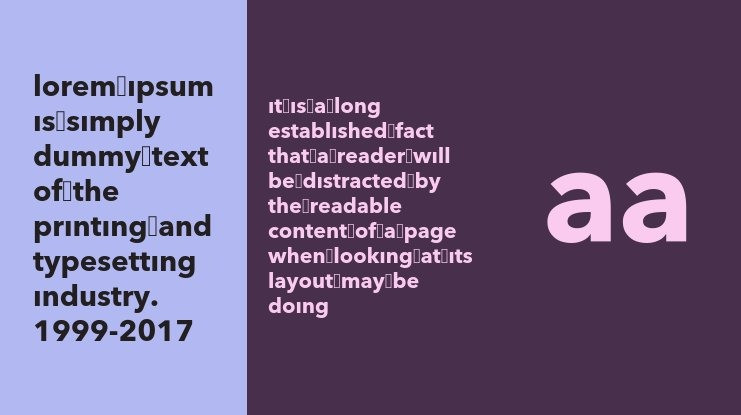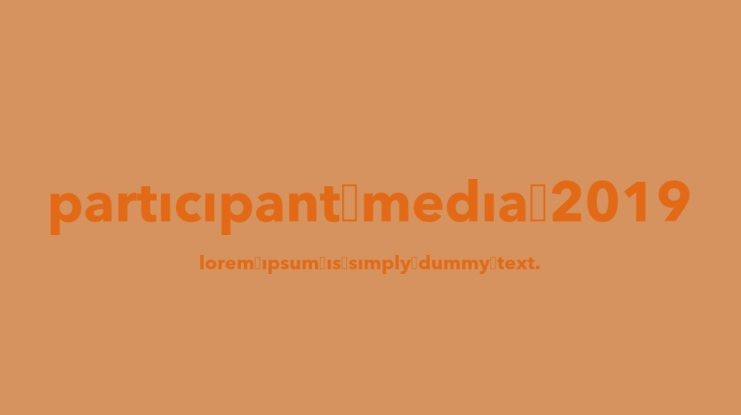
Participant Media 2019 Font, Suitable for any design needs : logo, branding, modern advertising design, logos, poster quote, book / cover Title, editorial design, website / blog, card, t-shirts,…
| Classification: | Display Fonts, Sans Serif Fonts |